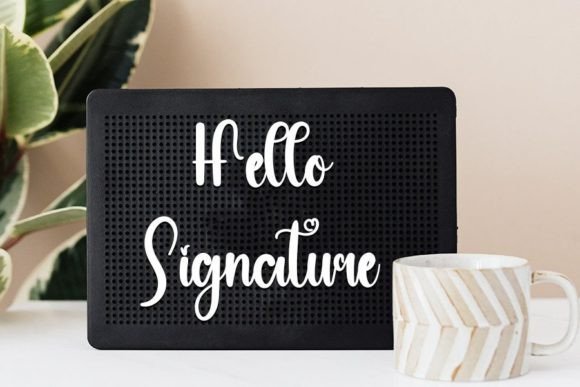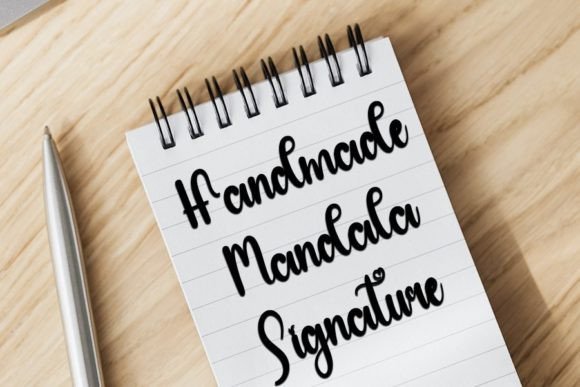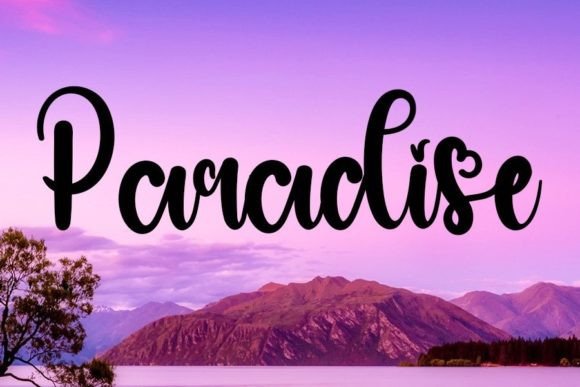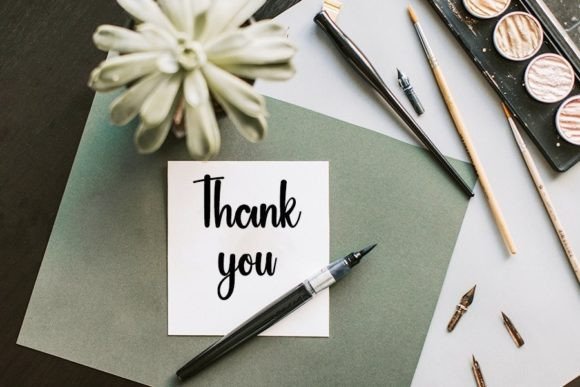
Sticky Font
About Sticky Font
Sticky is a charming and elegant handwritten font characterized by its neat and beautiful style. With its distinct and timeless design, this font is perfect for a wide range of creative projects. Its elegant touch adds a touch of sophistication, making it a favorite choice among designers. Fall in love with Sticky’s unique charm and use it to create spectacular designs that leave a lasting impression.
This font’s beauty lies in its simplicity and elegance. Its clean lines and graceful curves give it a refined and polished appearance, making it suitable for various applications. Whether you’re designing logos, branding materials, wedding invitations, greeting cards, posters, or any other creative project, Sticky enhances the overall aesthetic with its sophisticated allure.
Sticky’s versatility allows it to adapt effortlessly to different design themes and styles. It adds a touch of class to both formal and informal projects, making it a valuable asset for designers seeking a font that exudes elegance and refinement. Its handwritten quality adds a personal and authentic feel, making your designs more engaging and relatable to the audience.
Incorporating Sticky into your projects allows you to create visually stunning designs that stand out. Its distinct style and timeless appeal make it a reliable choice for designers who appreciate classic elegance with a contemporary twist. Embrace Sticky’s beauty and let it elevate your creations to new heights, leaving a lasting impression on anyone who sees them.